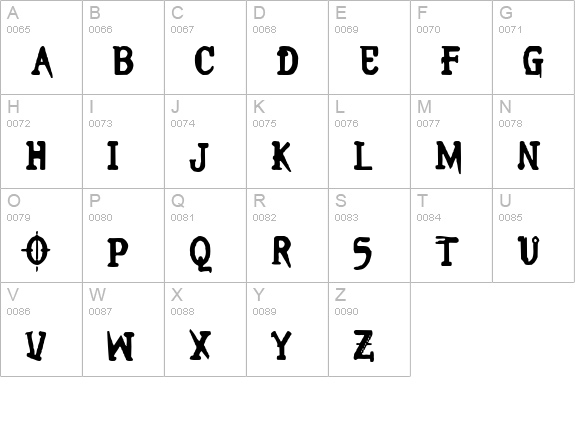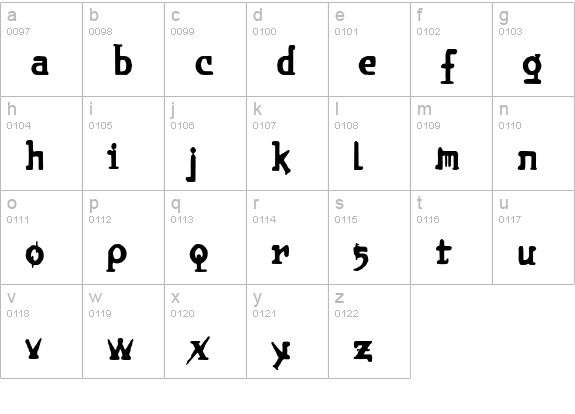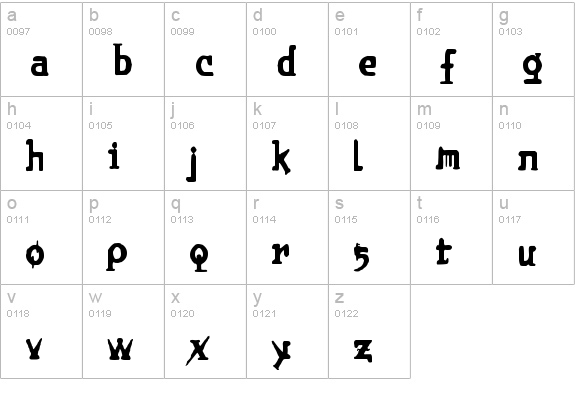
Brieincarnation Font Details
Brieincarnation font is a stunning and elegant typeface that exudes sophistication and charm. With its graceful curves and delicate serifs, this font is perfect for adding a touch of refinement to any design project. Whether you are creating invitations, branding materials, or social media graphics, Brieincarnation font will elevate your work to a whole new level. The best part? Brieincarnation font is completely free to download at FontsMarket.com. Now you can enjoy the beauty and versatility of this exquisite font without breaking the bank. Don't miss out on this incredible opportunity to enhance your designs with Brieincarnation font - download it today and let your creativity soar!